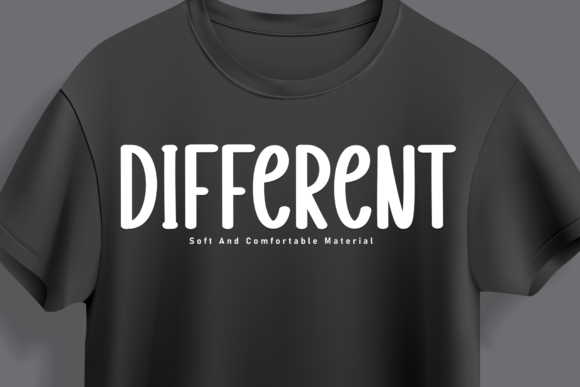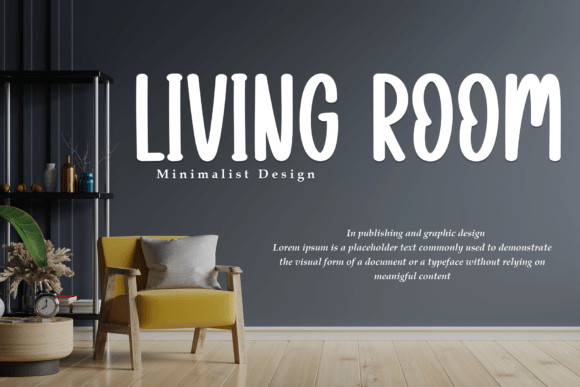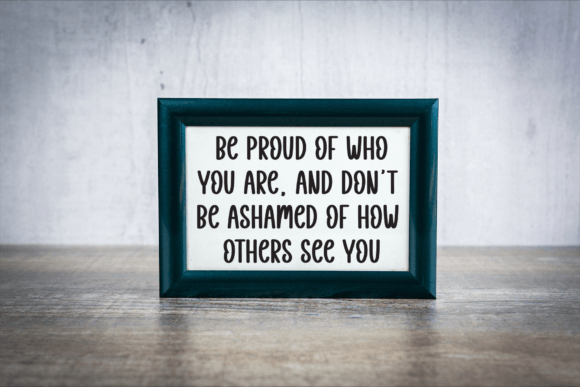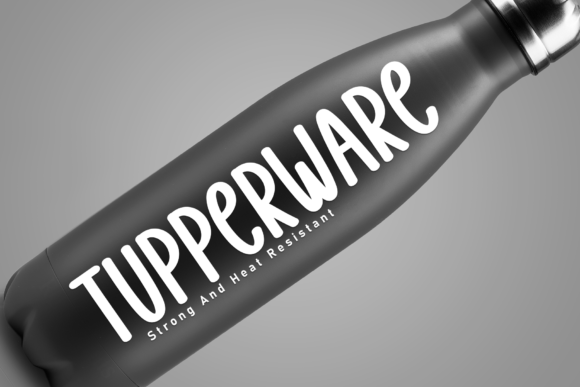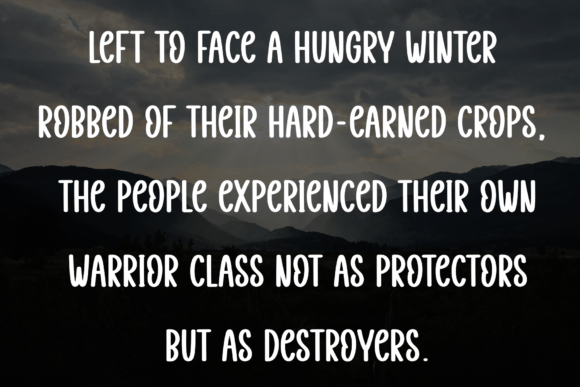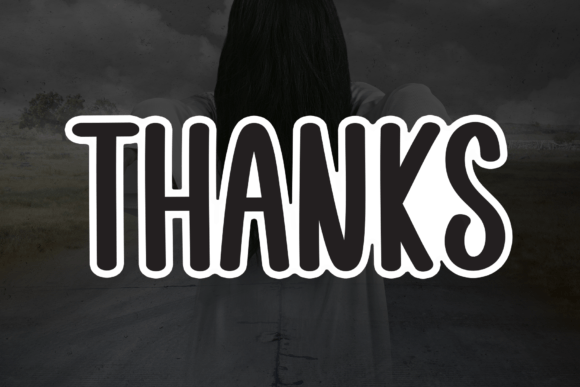
Discover the Charm of Ghosted Font: Elevate Your Designs with a Timeless Handwritten Style
Are you on the hunt for a font that adds a touch of elegance and personality to your designs? Look no further than Ghosted Font, a lovely and timeless handwritten font that is sure to capture the attention of your audience. In this article, we’ll dive into the world of Ghosted Font, exploring its unique features, and how it can be the perfect choice for creating eye-catching logos, branding, and quotes.
The Unique Charm of Ghosted Font
Ghosted Font boasts a distinctive, handcrafted feel that sets it apart from more generic fonts. Each letter has been carefully designed to have a unique and beautiful touch, giving your designs a personal and bespoke feel. The font’s handwritten style is reminiscent of traditional calligraphy, yet it has a modern twist that makes it perfect for contemporary designs.
Ghosted Font is incredibly versatile, making it an excellent choice for a wide range of design projects. Whether you’re looking to create a stunning logo, develop a brand identity, or craft inspiring quotes, this font is sure to deliver. Its elegant and flowing lines make it perfect for designs that require a touch of sophistication and refinement.
What Makes Ghosted Font Stand Out?
- Unique Letterforms: Each letter in Ghosted Font has been meticulously crafted to have its own distinct character, ensuring that your designs stand out from the crowd.
- Timeless Appeal: The font’s classic handwritten style ensures that it will remain relevant and stylish for years to come, making it a great investment for designers and crafters.
- Elegant and Refined: Ghosted Font’s flowing lines and delicate curves give it an air of sophistication, making it perfect for high-end designs and luxury brands.
- Versatile: The font is suitable for a wide range of design projects, from logos and branding to quotes and social media graphics.
Tips for Using Ghosted Font in Your Designs
To get the most out of Ghosted Font, here are a few tips to keep in mind:
- Pair it with a sans-serif font: Combining Ghosted Font with a clean sans-serif font can create a striking contrast that adds visual interest to your designs.
- Experiment with colors: The font’s elegant lines and curves look stunning in a range of colors, from bold and bright to soft and pastel.
- Use it sparingly: While Ghosted Font is beautiful, it’s best used sparingly to avoid overwhelming the viewer. Use it for key messages or headings to create a lasting impression.
Who Can Benefit from Ghosted Font?
Ghosted Font is a versatile font that can be used by a wide range of designers and crafters, including:
- Graphic Designers: Looking for a unique and elegant font to add to their design arsenal.
- Branding Experts: Seeking to create a distinctive brand identity that stands out from the competition.
- Crafters and Artists: Wanting to add a personal touch to their handmade crafts and artwork.
- Social Media Influencers: Looking for a stylish font to use in their social media graphics and quotes.
Ghosted Font is a beautiful and timeless handwritten font that is sure to elevate your designs to the next level. Its unique letterforms, elegant lines, and versatile style make it perfect for a wide range of design projects. Whether you’re a graphic designer, branding expert, crafter, or social media influencer, Ghosted Font is a great choice for anyone looking to add a touch of sophistication and personality to their designs.